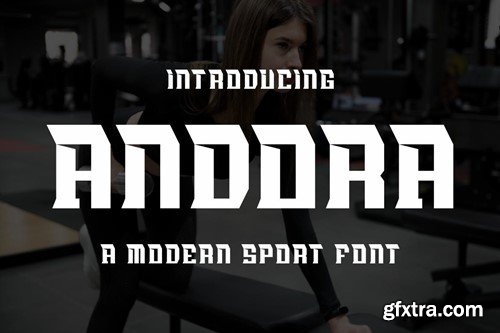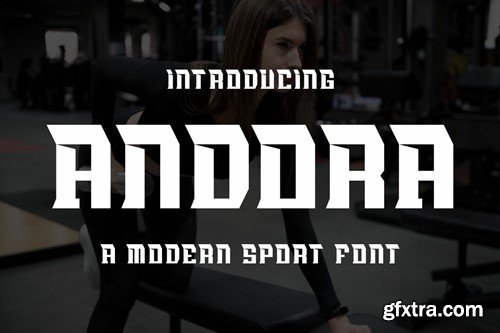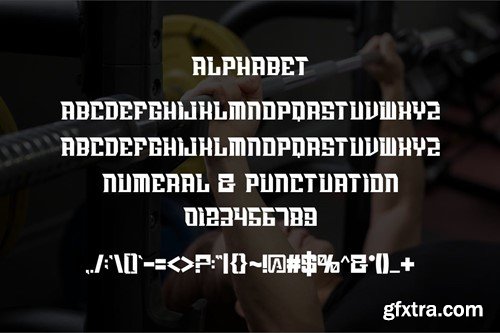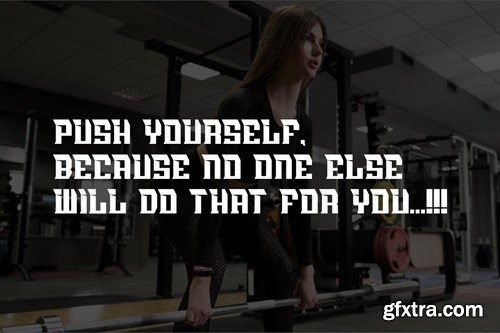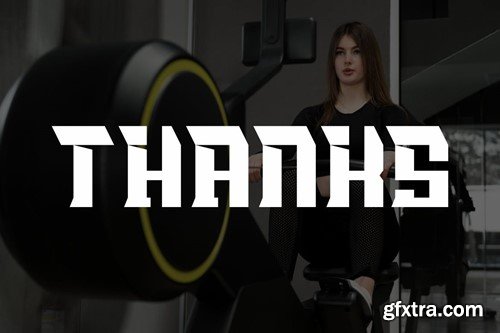
安达罗 - 现代运动字体 Q74FXLK
Andora - Modern Sport Font
Proudly presenting our new product Andora - Modern Sport Font is a modern and authentic font. Perfect for professional and product branding needs, this font is suitable for any branding project such as quotes, logos, blog headers, posters, ribbons, letters, invitations, stationery, etc... Designed to be versatile and flexible that can be used on a variety of projects and media. extraordinary in a variety of contexts. Available We include the font format in the download file. In file form for download Of course Ttf Uppercase If you have any questions, queries or concerns please do not hesitate to contact us directly. Appearance and cover image Not included in the download file, for presentation purposes only.